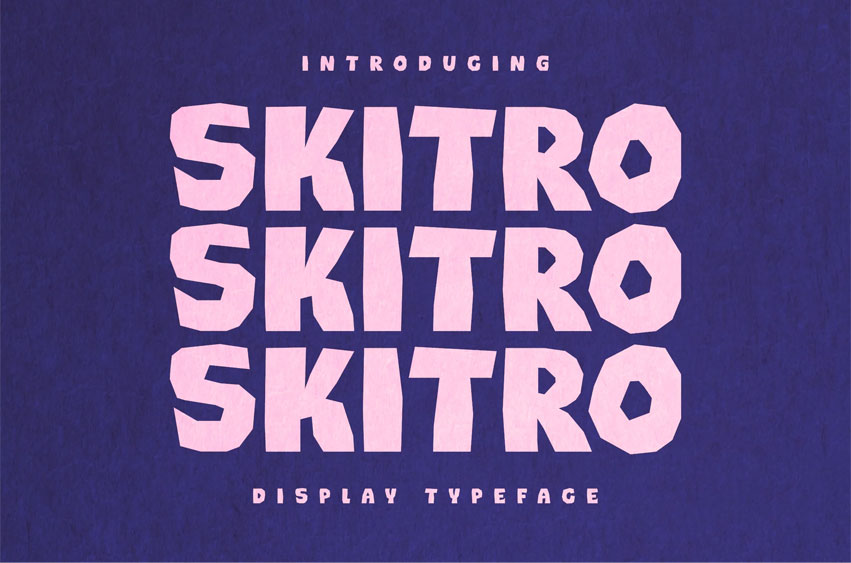
Skitro Font is a bold retro display typeface inspired by handmade paper-cut lettering and vintage poster design.
With its strong geometric shapes and slightly irregular edges, SKITRO delivers a handcrafted look that feels playful, organic and expressive. The chunky letterforms make it perfect for eye-catching headlines and bold graphic compositions.
This font is designed to stand out — whether you’re creating posters, logos, packaging or social media graphics.
SKITRO adds a bold handmade retro character to any design project.